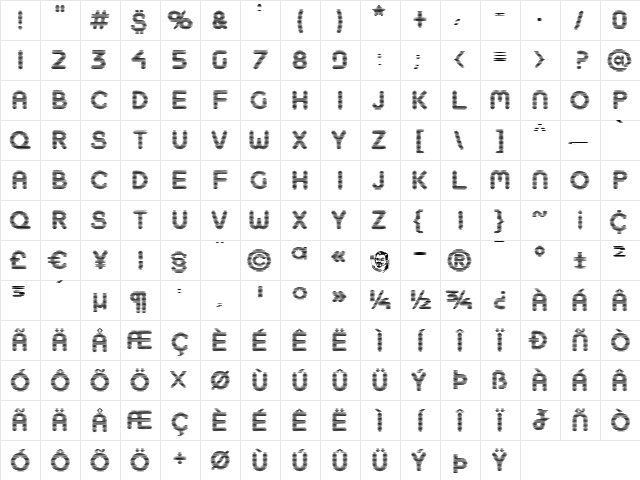
BoobToob Regular
Design Context for BoobToob
BoobToob is a composed and adaptable typeface that performs quietly and consistently across a wide range of design contexts.